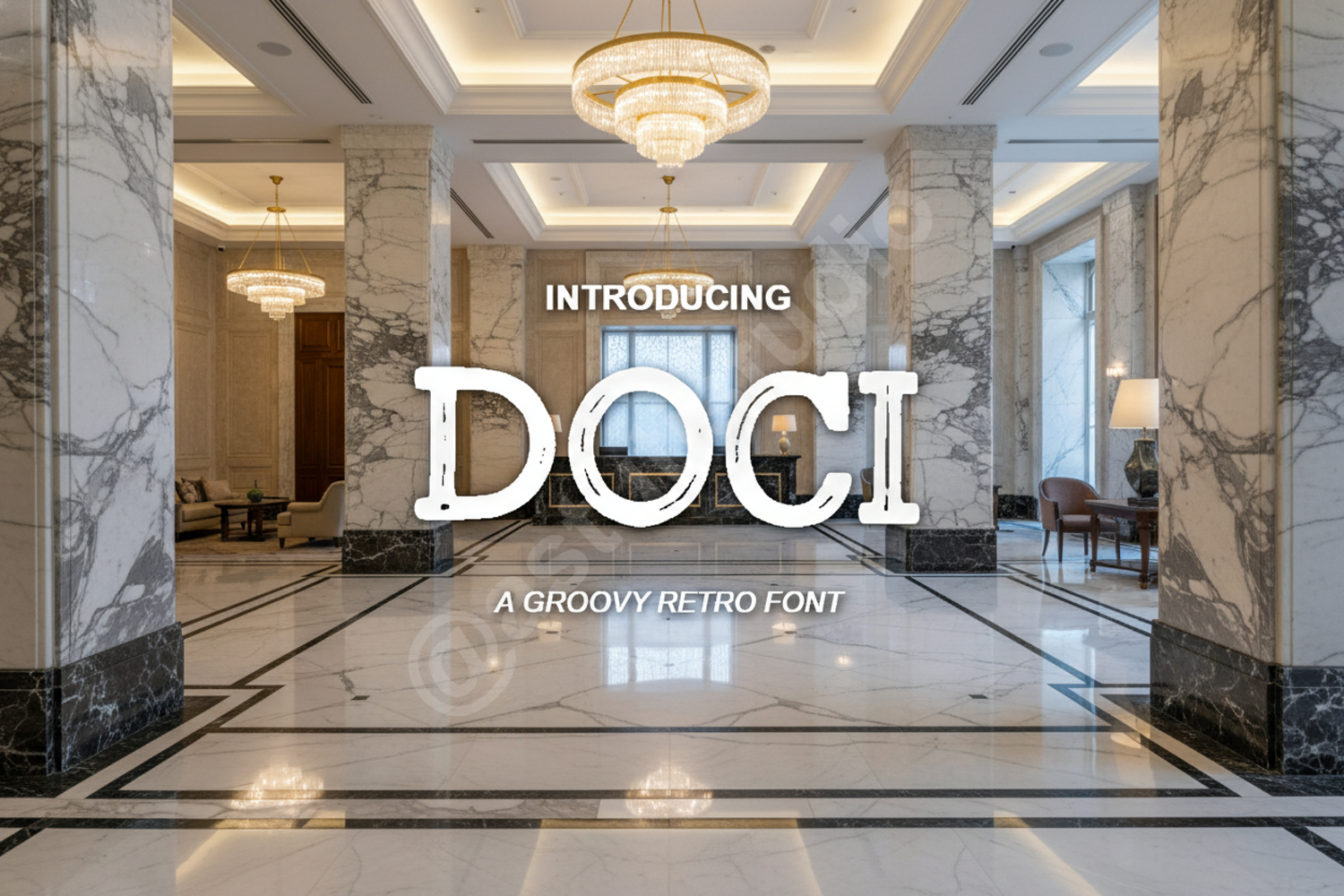
Doci | Modern Minimalist Sans Serif
Doci
Doci is a premium sans serif typeface designed with a focus on clean lines and modern geometric proportions. Its versatile nature makes it an essential tool for designers looking to achieve a sophisticated and contemporary look in their projects. Whether you are working on a high-end brand identity or a minimalist editorial layout, Doci provides the clarity and elegance your work deserves.
- Branding and Logo Design: Create memorable identities with a clean, professional edge.
- Editorial Design: Perfect for headlines, pull quotes, and body text in magazines or lookbooks.
- Social Media Graphics: Enhance your digital presence with high-readability typography.
- Website Headers: Ideal for modern UI/UX designs that require a sleek aesthetic.
- Print Media: Exceptional performance for business cards, posters, and stationery.